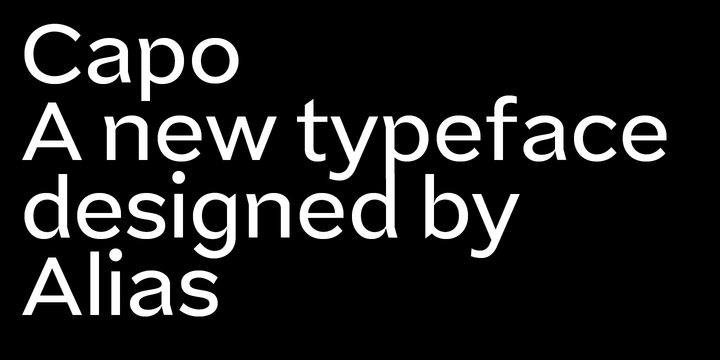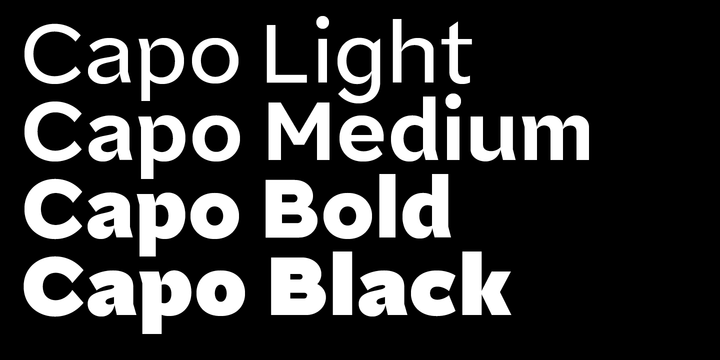
Capo Font Family
About this font family
The intention with Capo was to make a typeface with a pinched, angled connection between curves and verticals. We have explored this incised, cut motif previously on typefaces, most notably Noah, Sabre and Harbour. These have focussed more specifically on stone-cut forms.
For Capo we wanted to mix the expressive quality of its ‘pinch’ idea with an overall aesthetic that could be applied to text rather than headline. So Capo has something of the function and warm, organic quality of Grotesque style typefaces.